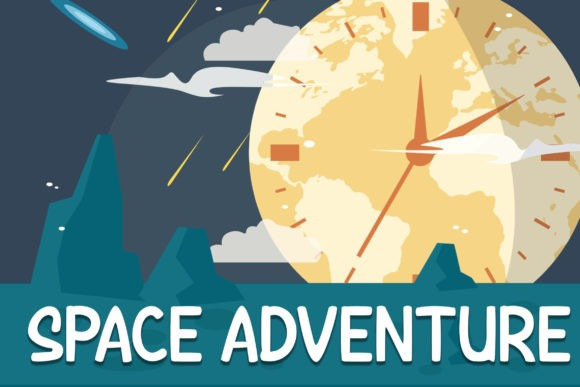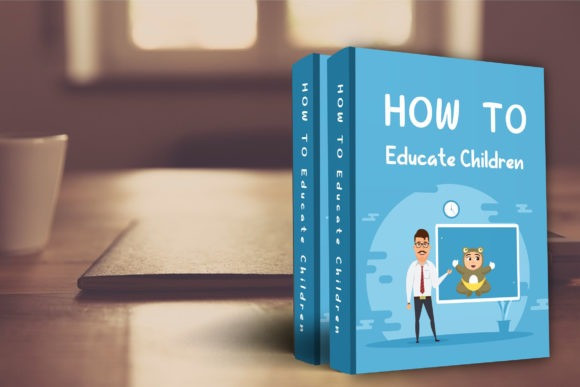
Jungle Kid Font
Jungle Kid Font is a playful and friendly display font. This font is perfect for children themed designs, especially when combined with bright colors.